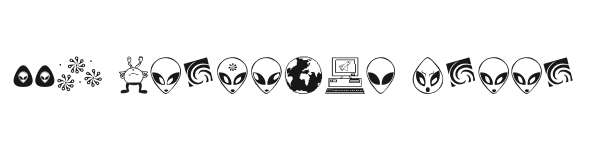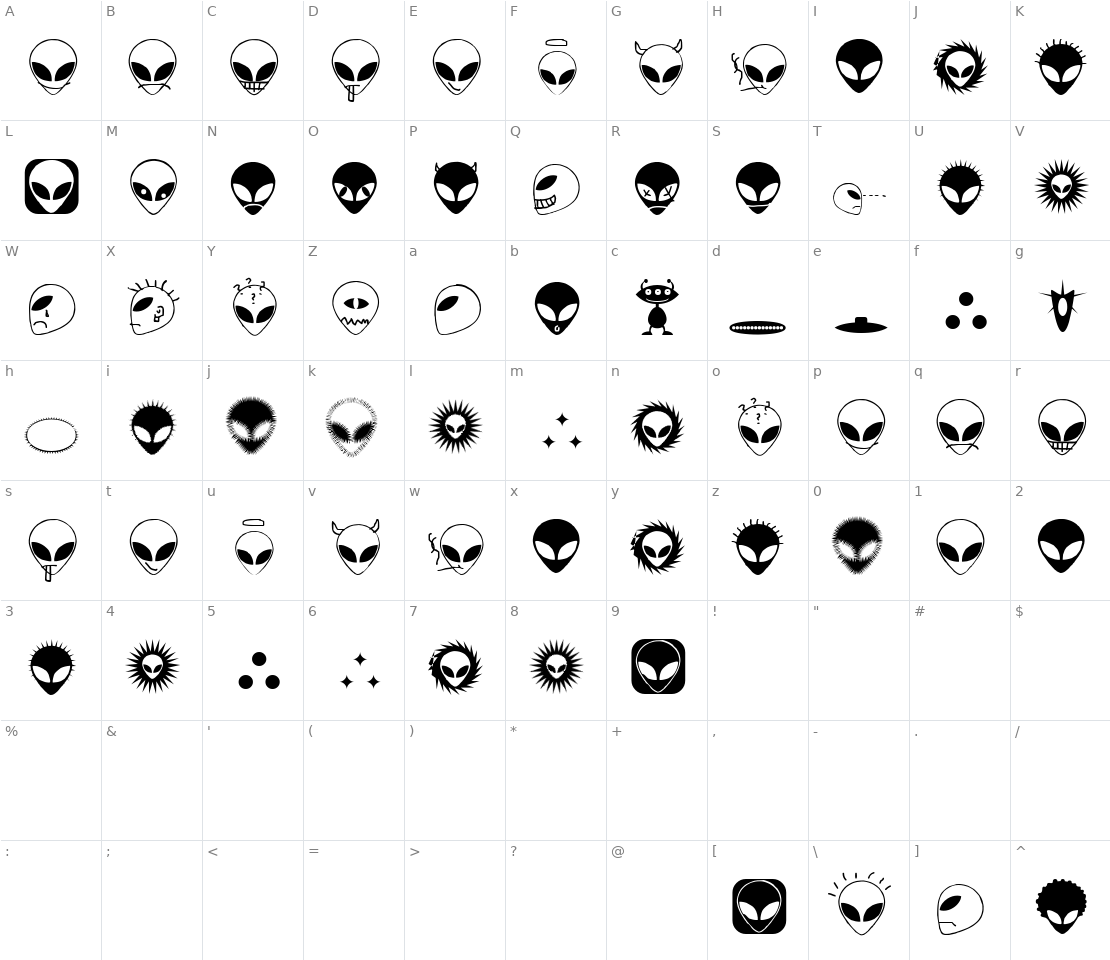
Alienator
by Cosmonaut Fonts
Alienator is a novelty symbol font from Cosmonaut Fonts made up of alien-themed icons and glyphs rather than readable letters. Expect UFOs, extraterrestrial figures, and space-related shapes, the kind of dingbat set you'd reach for when building sci-fi themed graphics, game assets, or decorative borders. Not a text face by any stretch, but a fun toolkit for adding otherworldly visual elements to a layout.